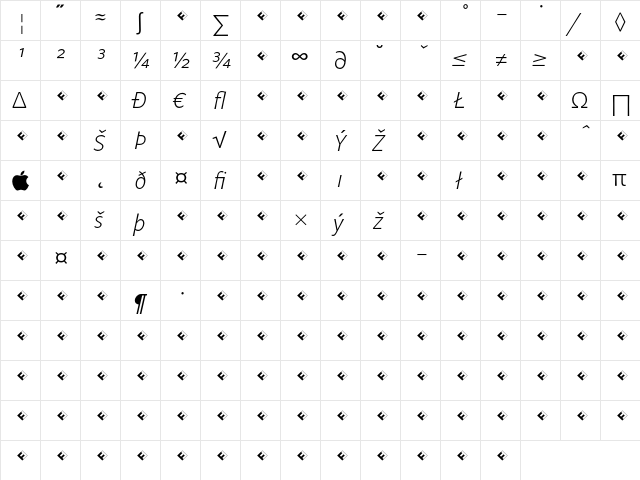
Legato Light Italic Expert
Design Context for Legato Typeface
Legato offers clean, dependable letterforms without strong stylistic allegiance, making it a practical choice for designers who need flexibility. The dynamic lean of this cut emphasises speed and emphasis in any layout. The delicate stroke weight brings airiness and refinement to layouts.
Pro Tip: Use Legato for emphasis, pull quotes, and subheadings where its slanted energy can add rhythm to the layout.